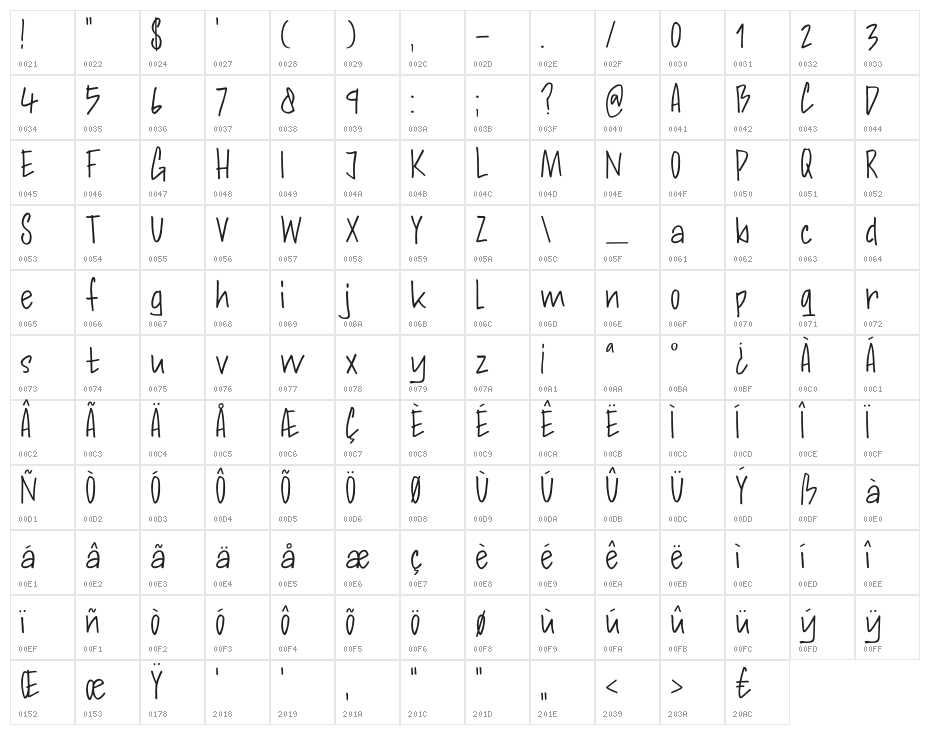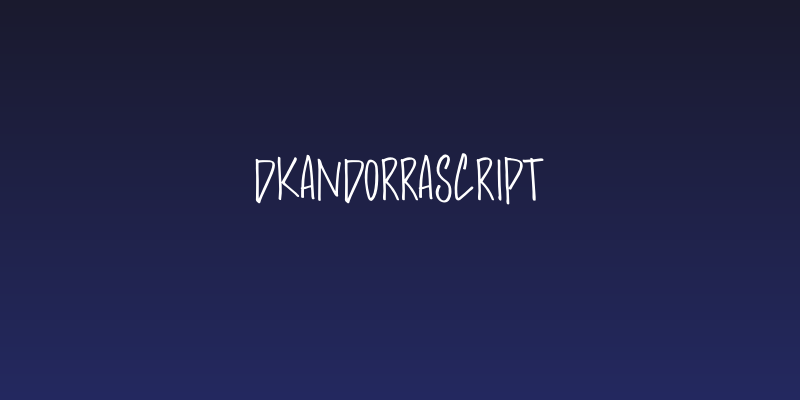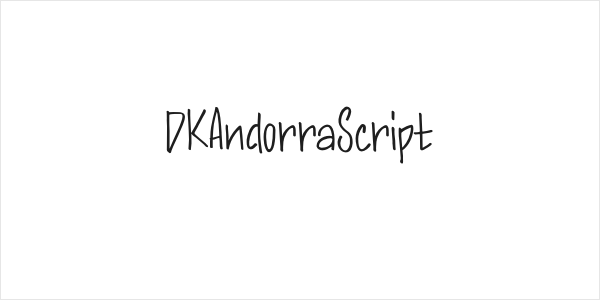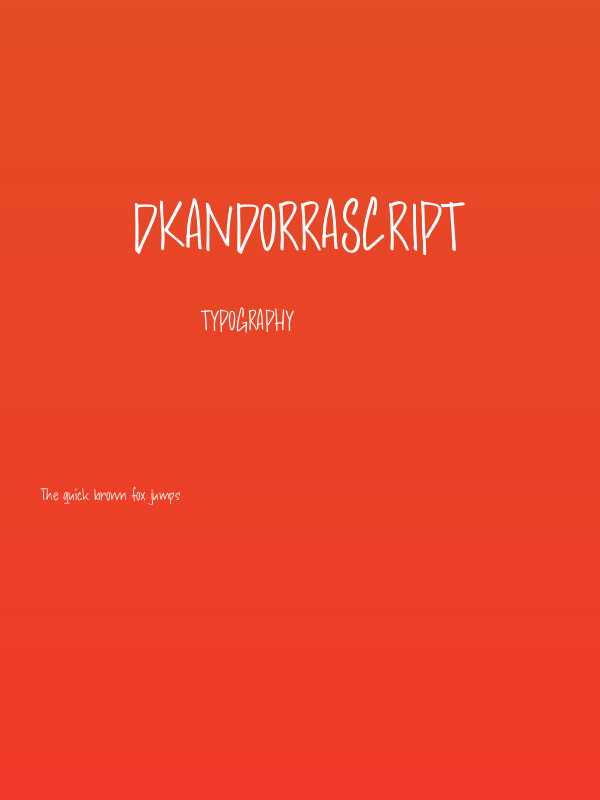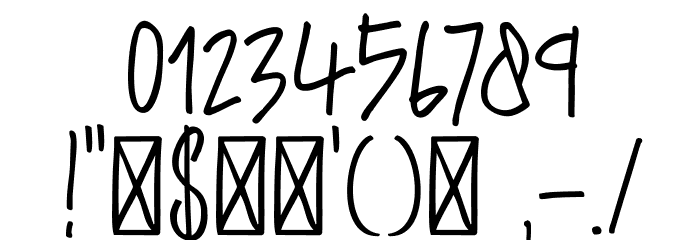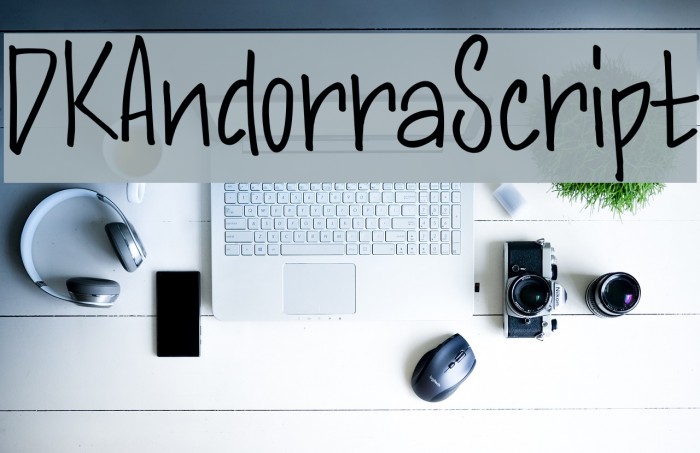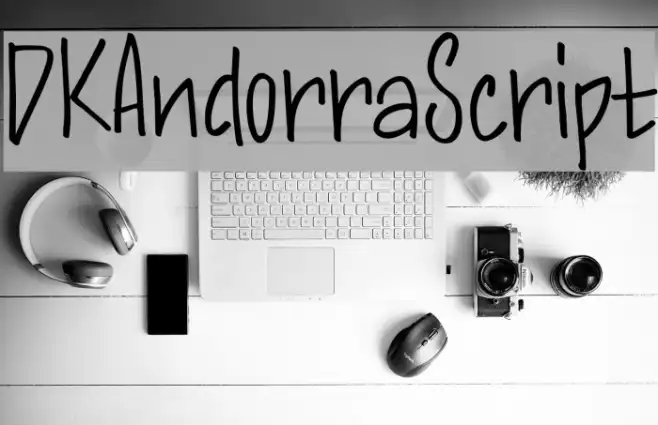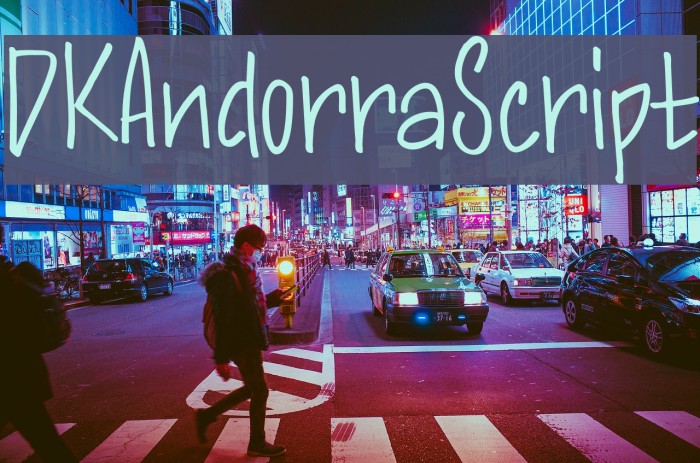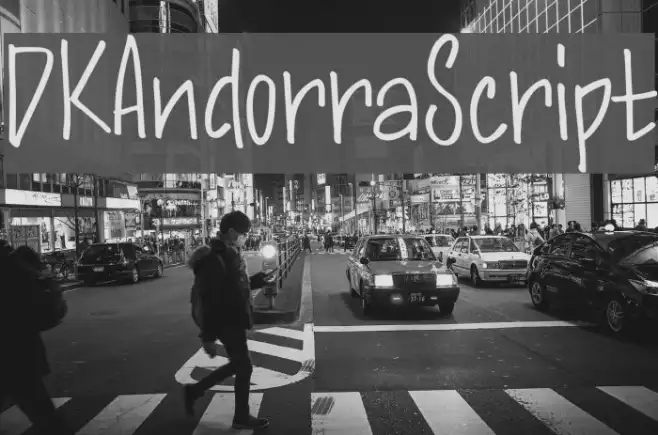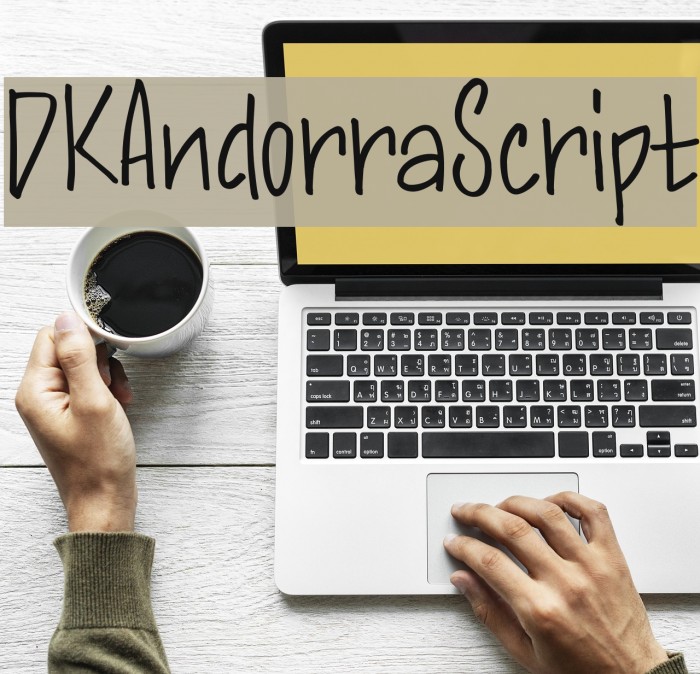
DKAndorraScript Font
DKAndorraScript Description
This font features a playful and casual handwritten style, characterized by its irregular strokes and organic flow. The uppercase letters are tall and slightly narrow, while the lowercase letters maintain a consistent height, adding to its approachable and friendly appearance. The numbers and special characters follow the same informal aesthetic, making them blend seamlessly with the alphabet. The overall design is reminiscent of a personal note or a quick sketch, giving it a unique charm. The strokes vary slightly in thickness, adding a touch of dynamism without compromising legibility.
| Use Case | Headlines, Informal text, Personal notes |
| Proposed Projects | Ideal for greeting cards, personal branding, casual invitations, and playful social media graphics. |